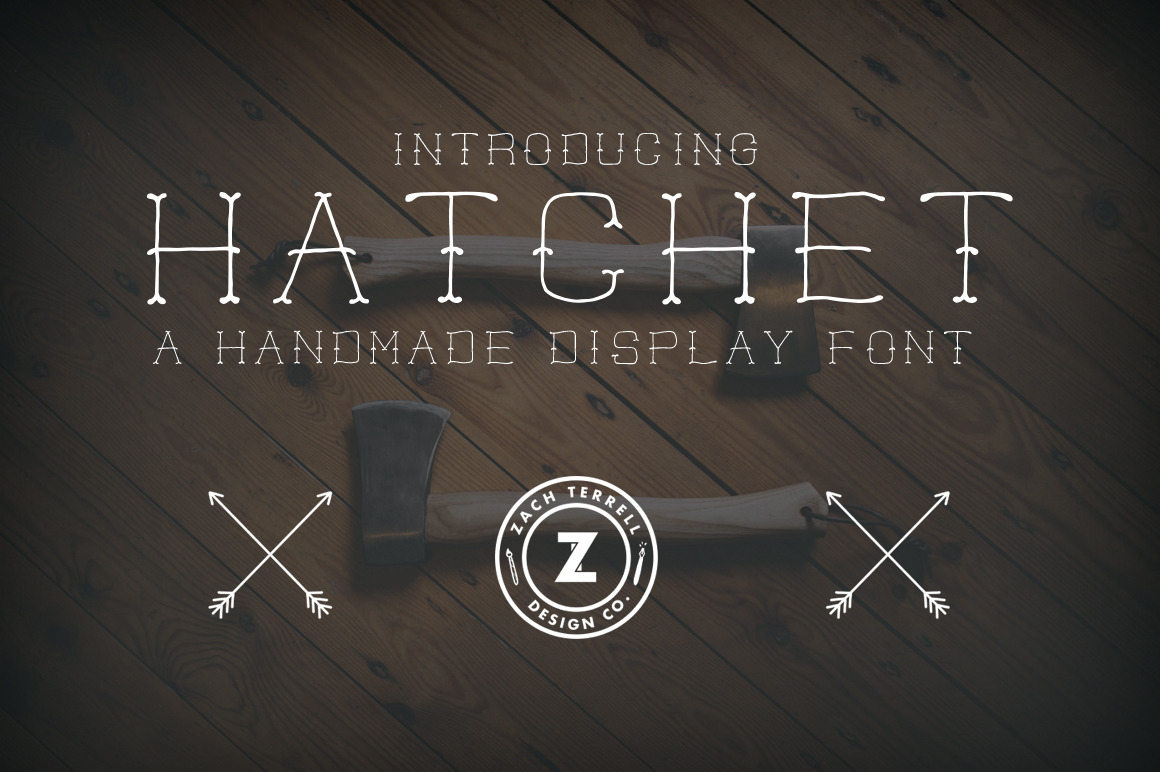
Hatchet Font
Hatchet is a hand-drawn font that is inspired from classic tattoo and vintage woodcut type.
It consists of only capital letters and punctuation, making it perfect for headings and titles. Hatchet is delightfully imperfect, yet elegant all the same.